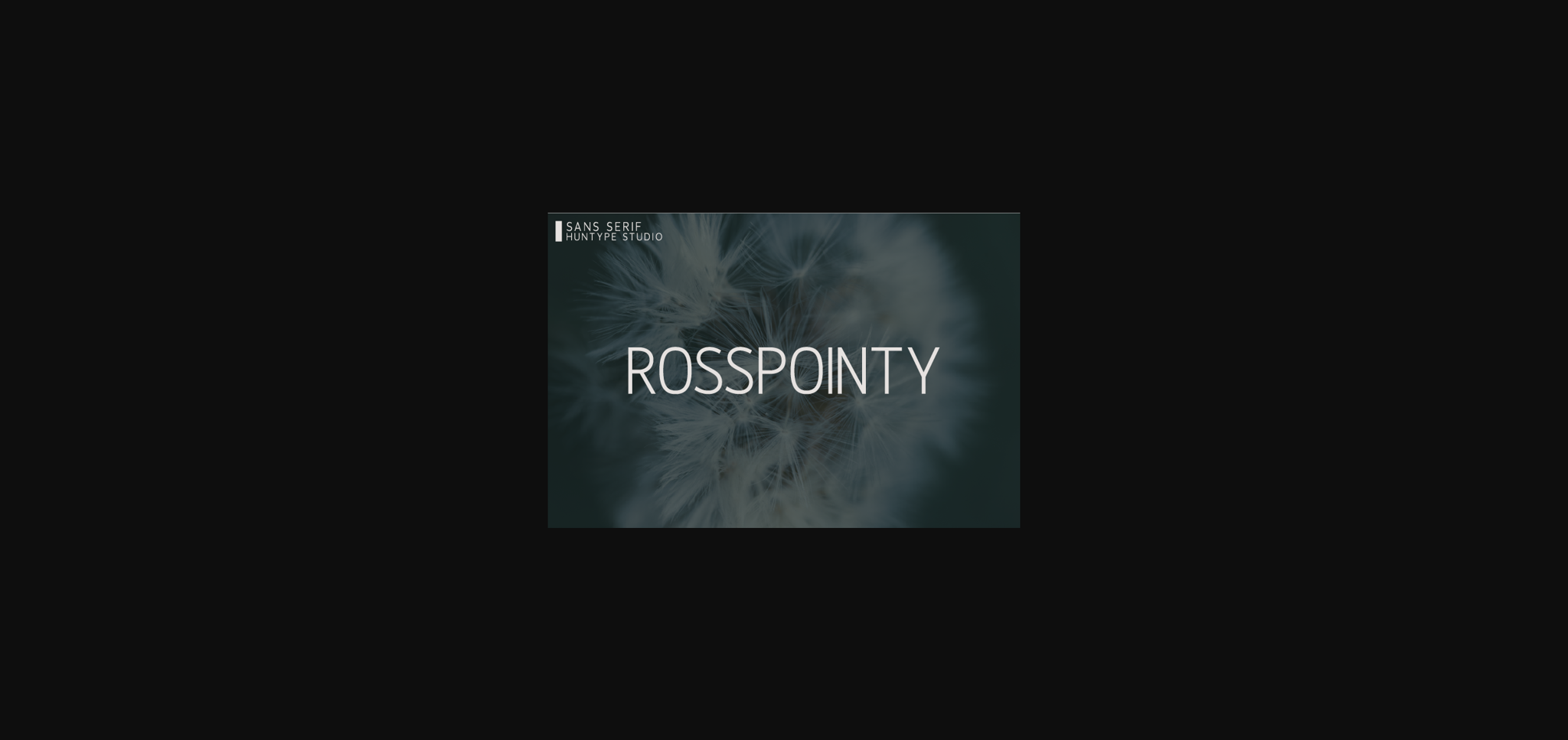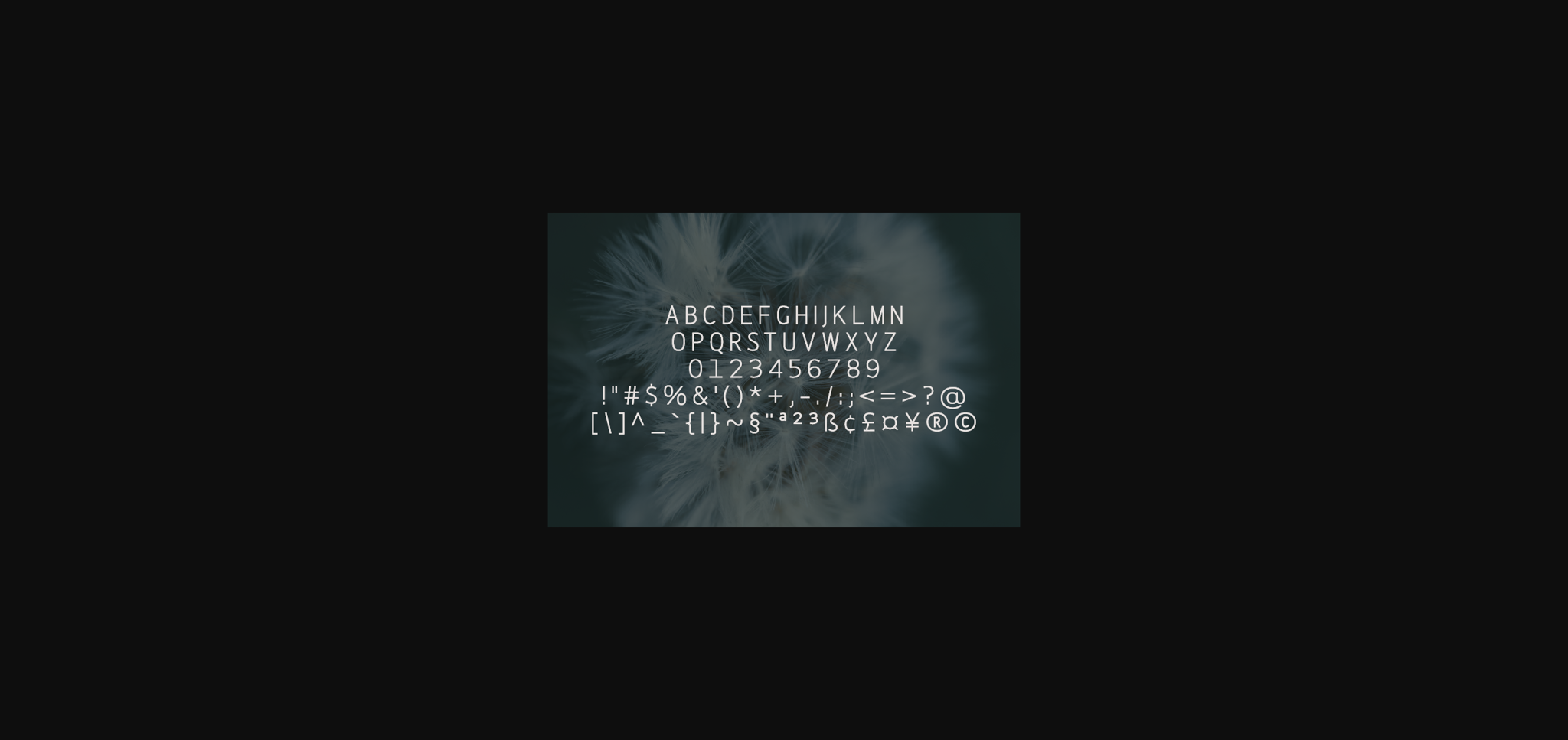
Rosspointy Font
About Rosspointy Font
Rosspointy is a simple and casual sans serif font with an undeniably clean feel. With its neat and beautiful arrangement of letters, this typeface will look outstanding in both formal and non-formal designs.